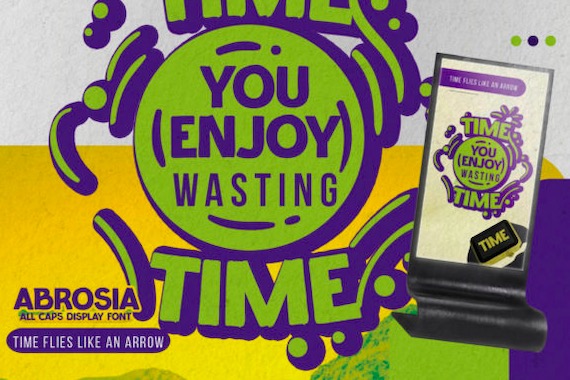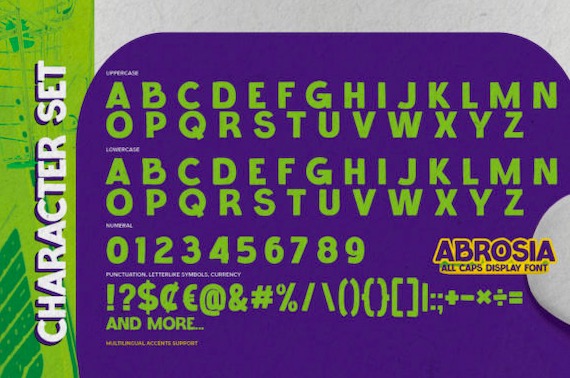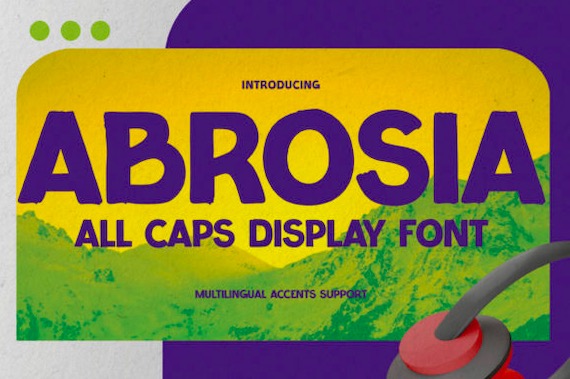
ABROSIA Font
Here comes a fresh modern display font, which is ABROSIA Font. And It’s an All Caps Display Font that was created and shared by Gassstype along with an Authentic Classy Style and Textured Natural Style. ABROSIA Font is great for your creative projects such as watermarking on photography, and perfect for logos & branding, invitation, advertisements, product designs, stationery, wedding designs, label, product packaging, special events, or anything that need handwriting taste.
ABROSIA a natural Hand Drawn feel. This handmade font will make your design has a beautiful natural touch for each detail. It is perfect for any design project as Invitation, logo, book cover, craft or any design purposes, photography overlays, signs, window art, scrapbooking, tags and so much more! It is perfect for any design project as Invitation, logo, book cover, craft, or any design purposes.